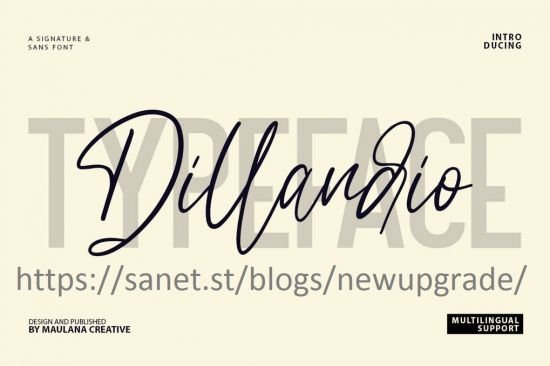
Give your designs an authentic handcrafted feel. “ Dillandio - Font Duo” is perfectly suited to signature, stationery, logo, typography quotes, magazine or book cover, website header, clothing, branding, packaging design and more.
Ligatures
Multilingual Support